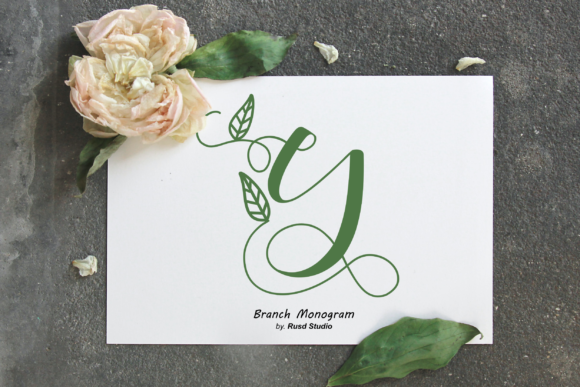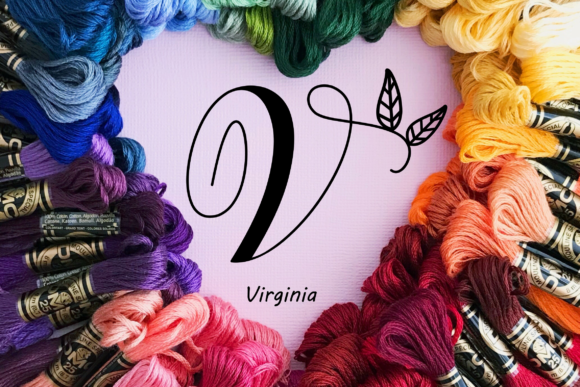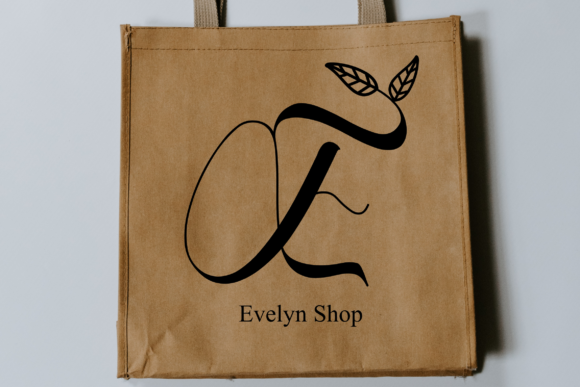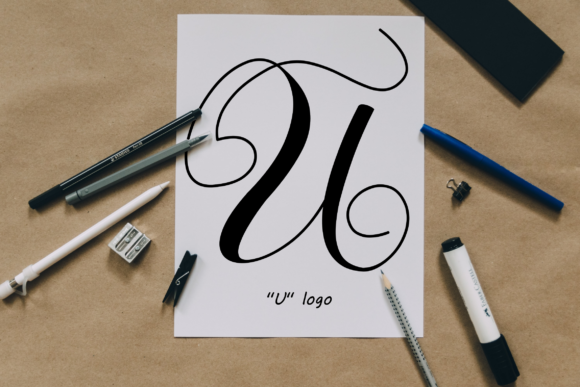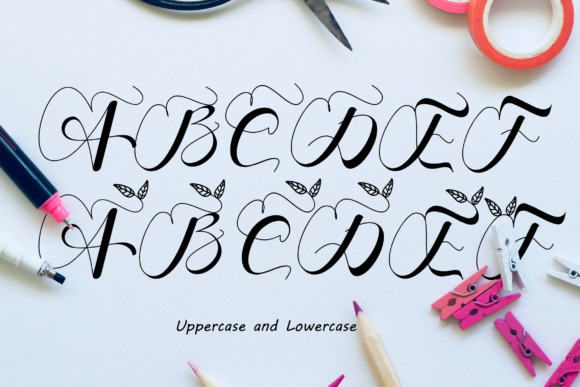
Branch Monogram Font
About Branch Monogram Font
Branch Monogram is an elegant and dainty handwritten font that features sweet and delicate swashes. This original look will appeal to a wide range of crafty ideas, from letterheads and titles, to stationery.